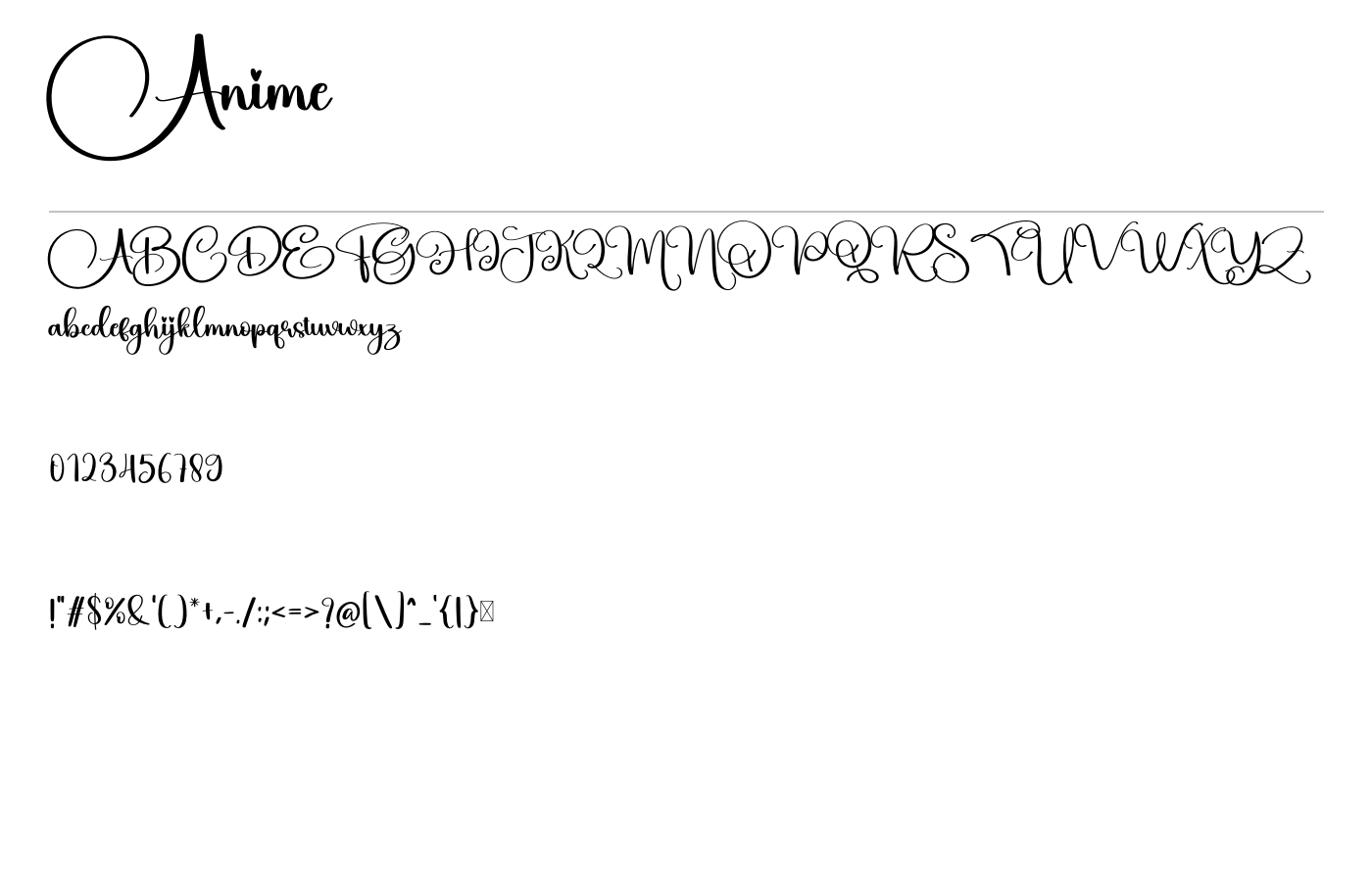
Anime Font is a stylish script typeface with flowing, decorative strokes and high contrast between thick and thin lines, giving it an elegant and whimsical feel. Its elaborate uppercase letters boast intricate swirls and loops, while the lowercase characters maintain a more readable but still playful look, making it perfect for creative branding, invitations, or artistic headlines that seek a graceful and charming personality.
Anime Font
About Anime Font